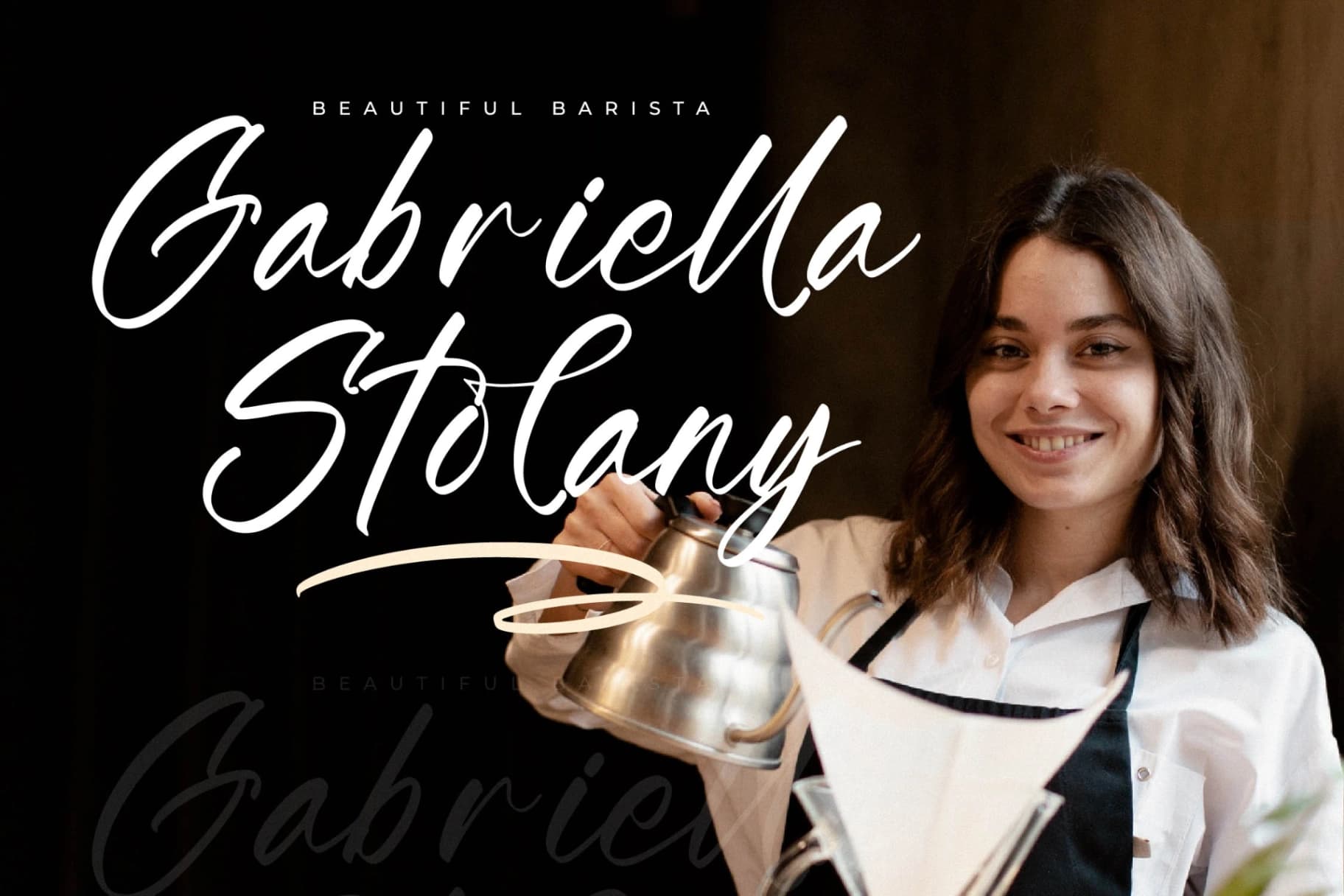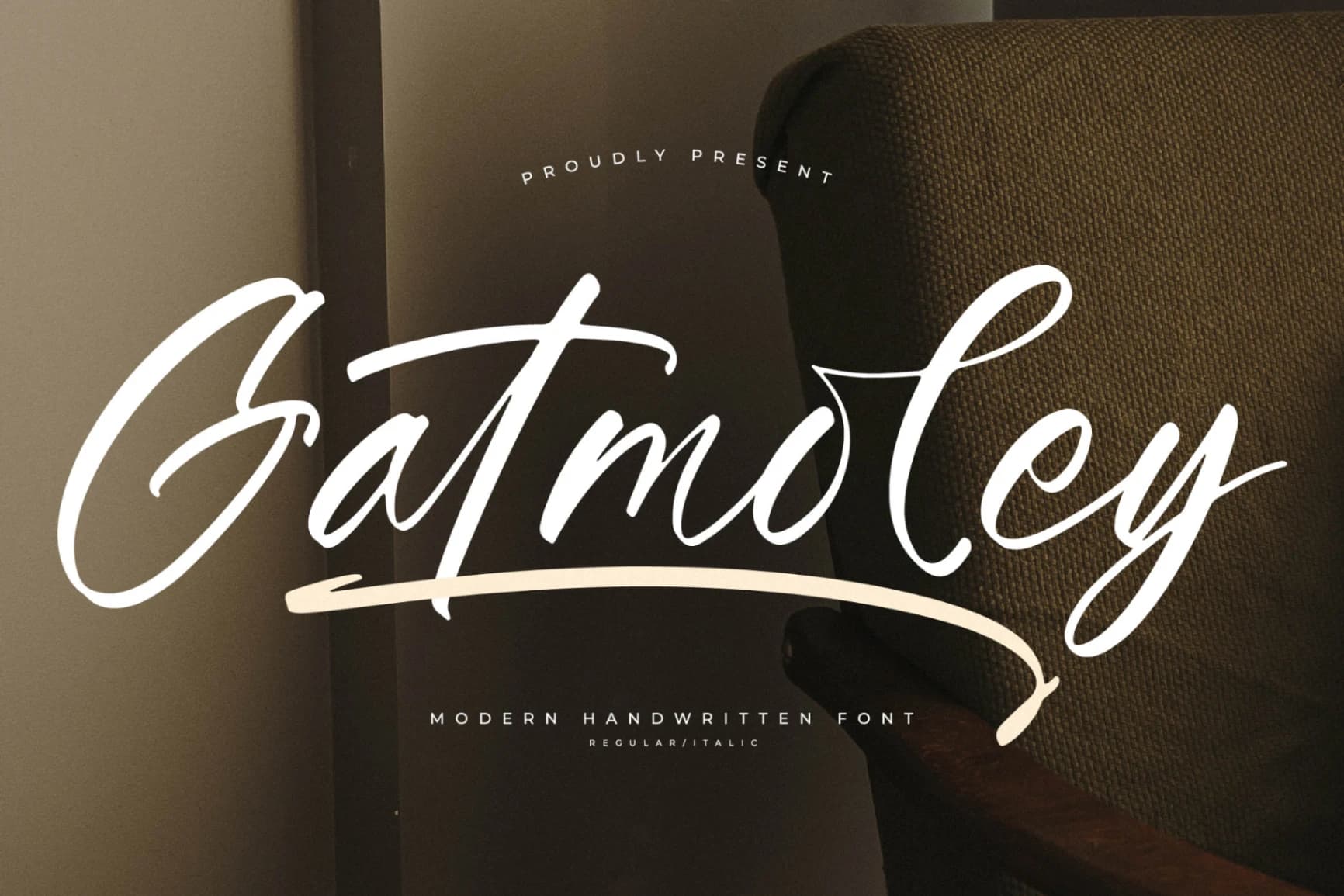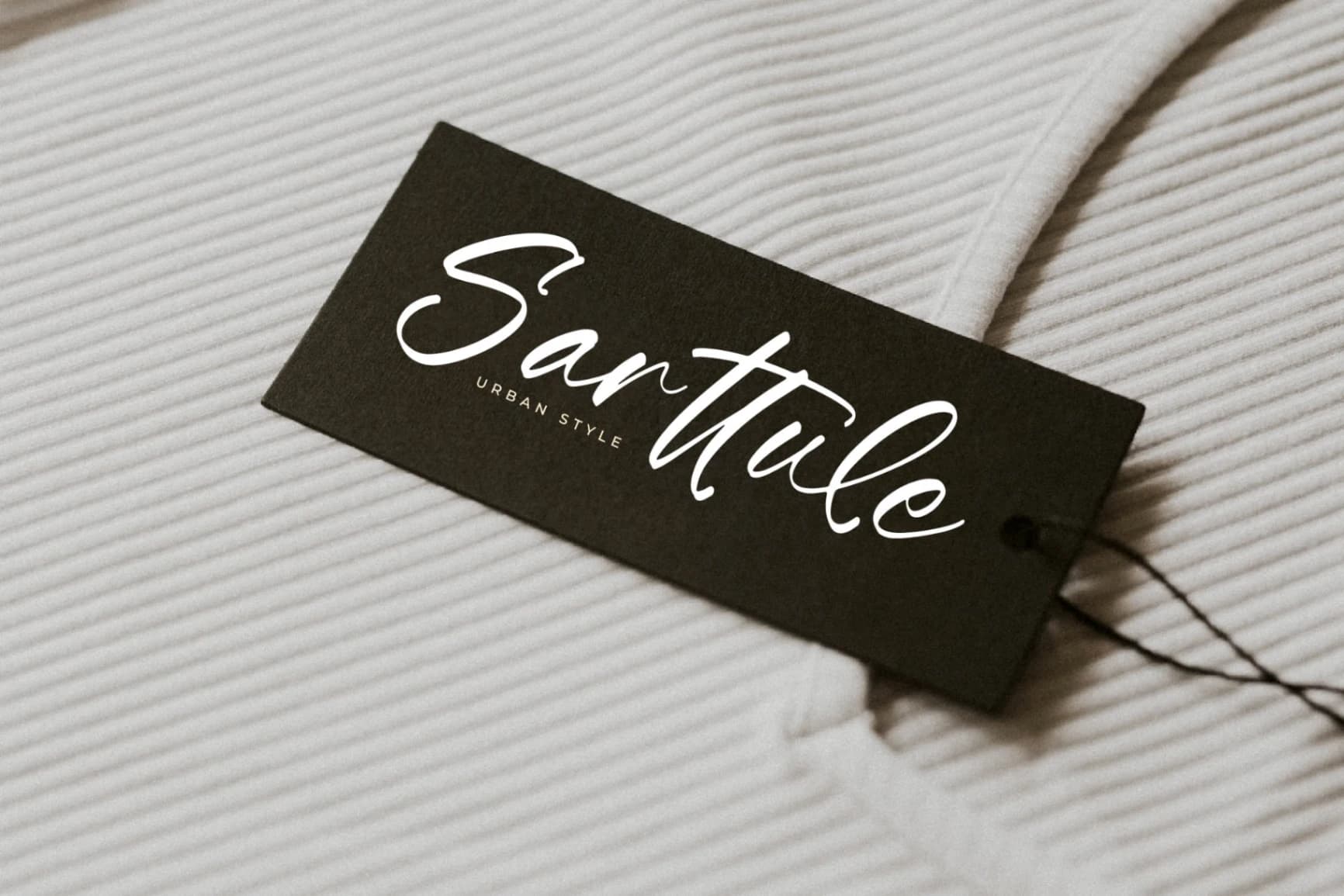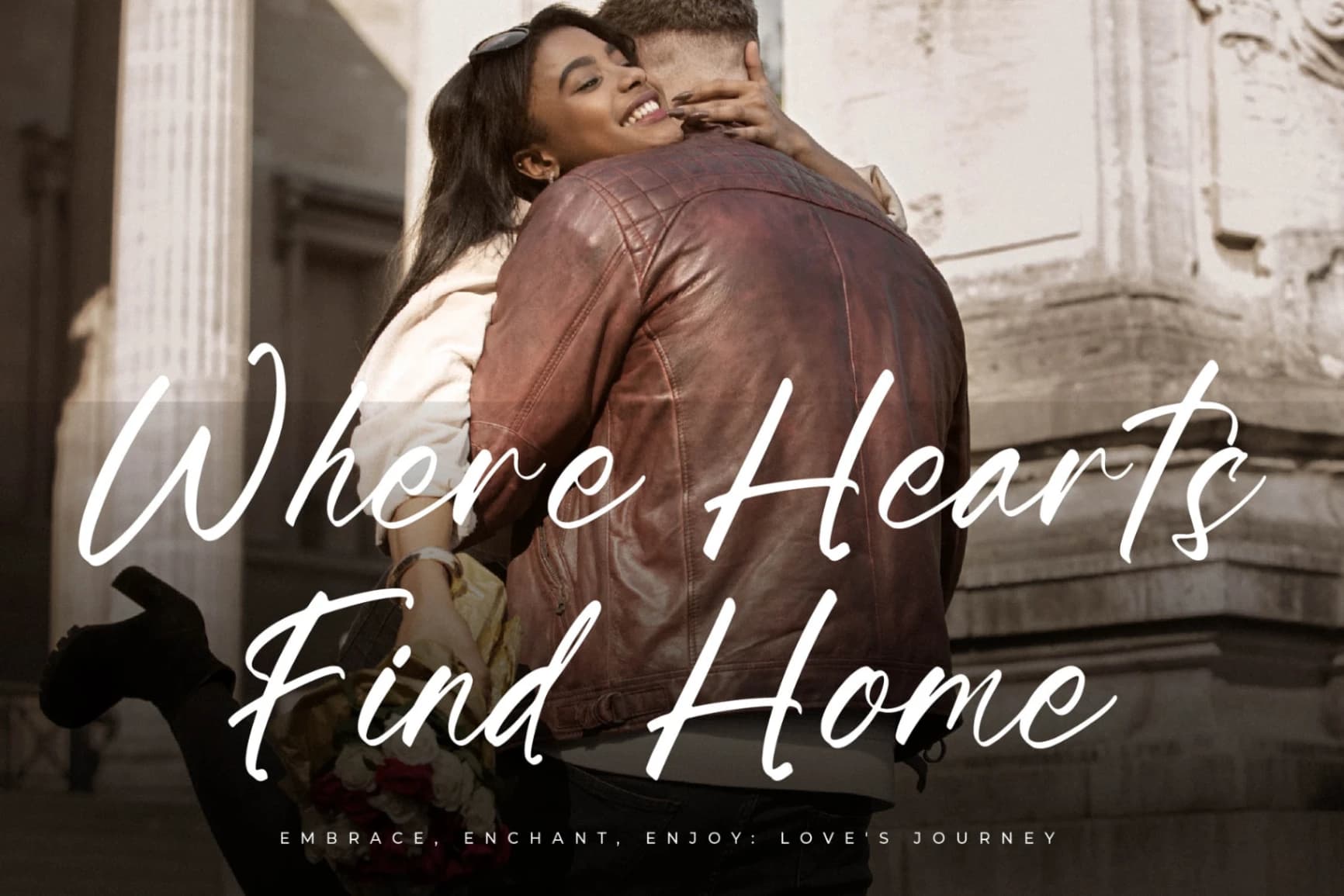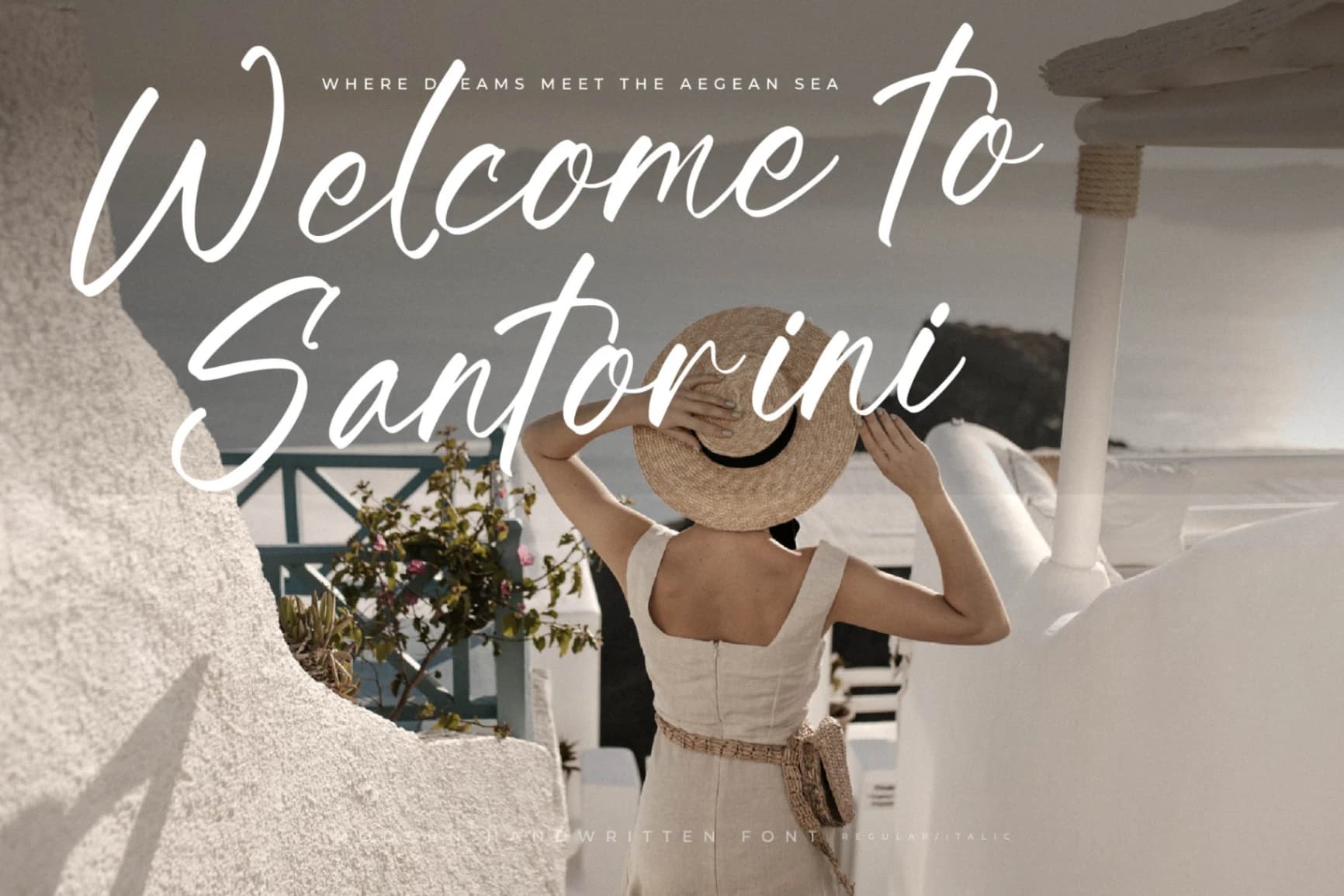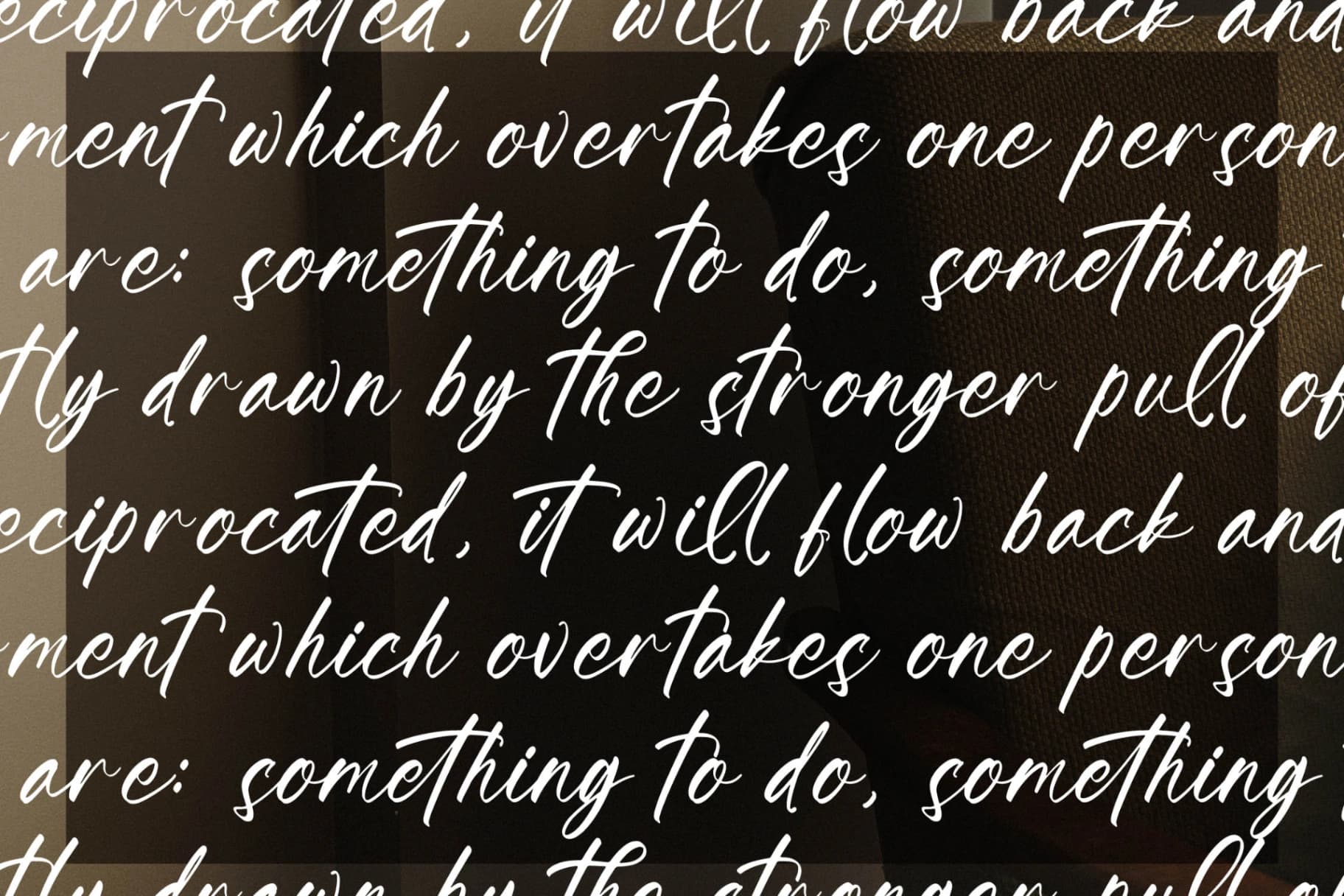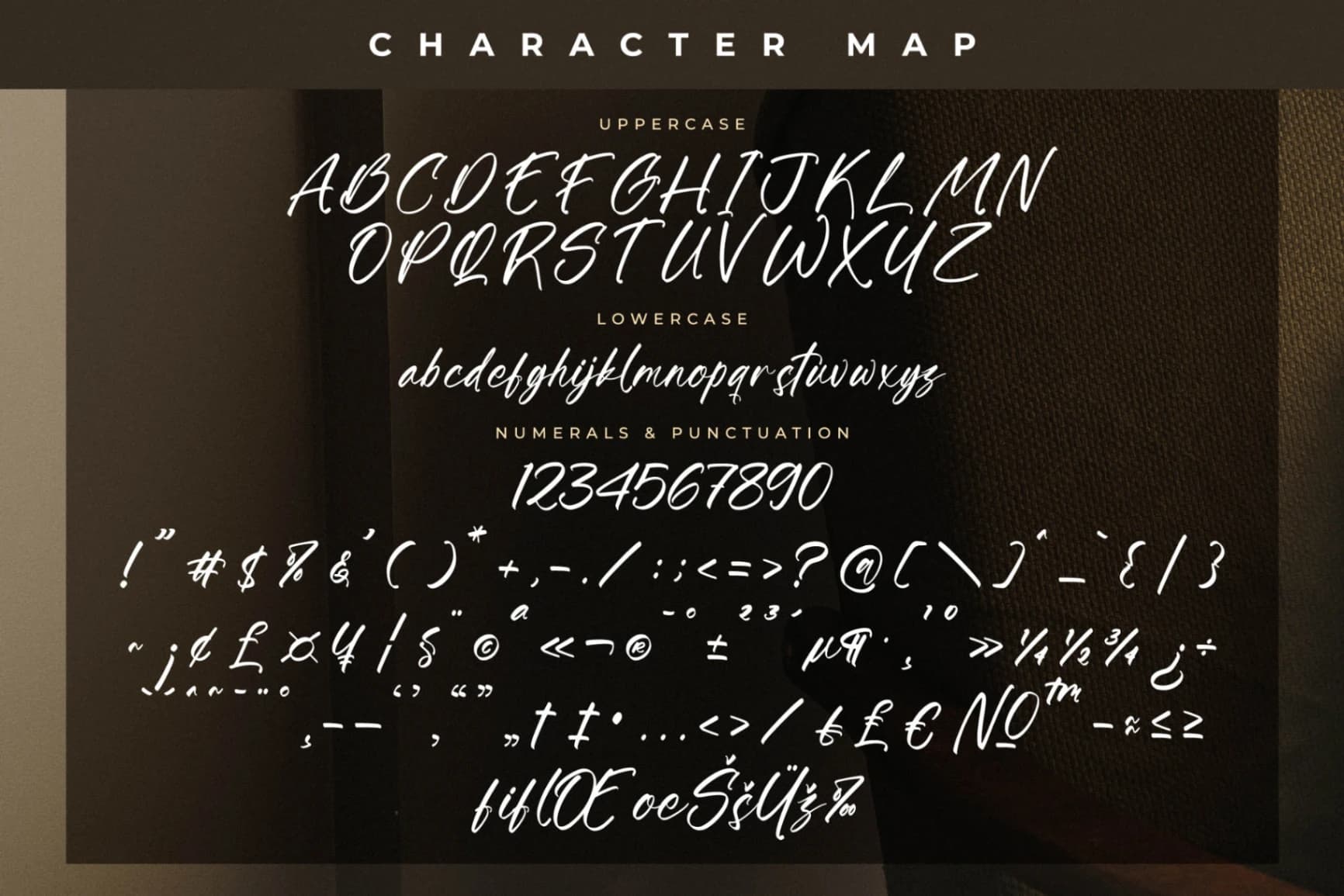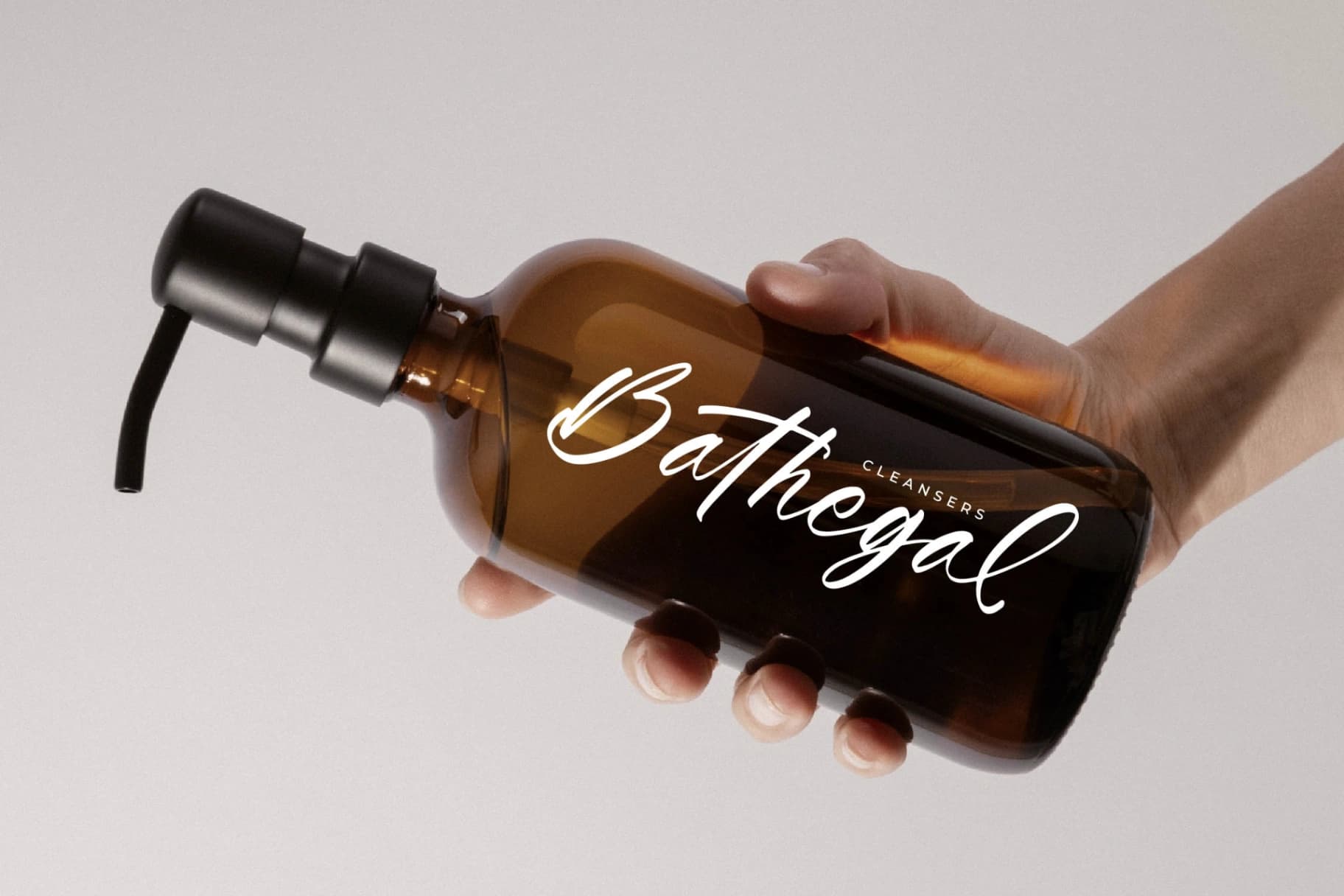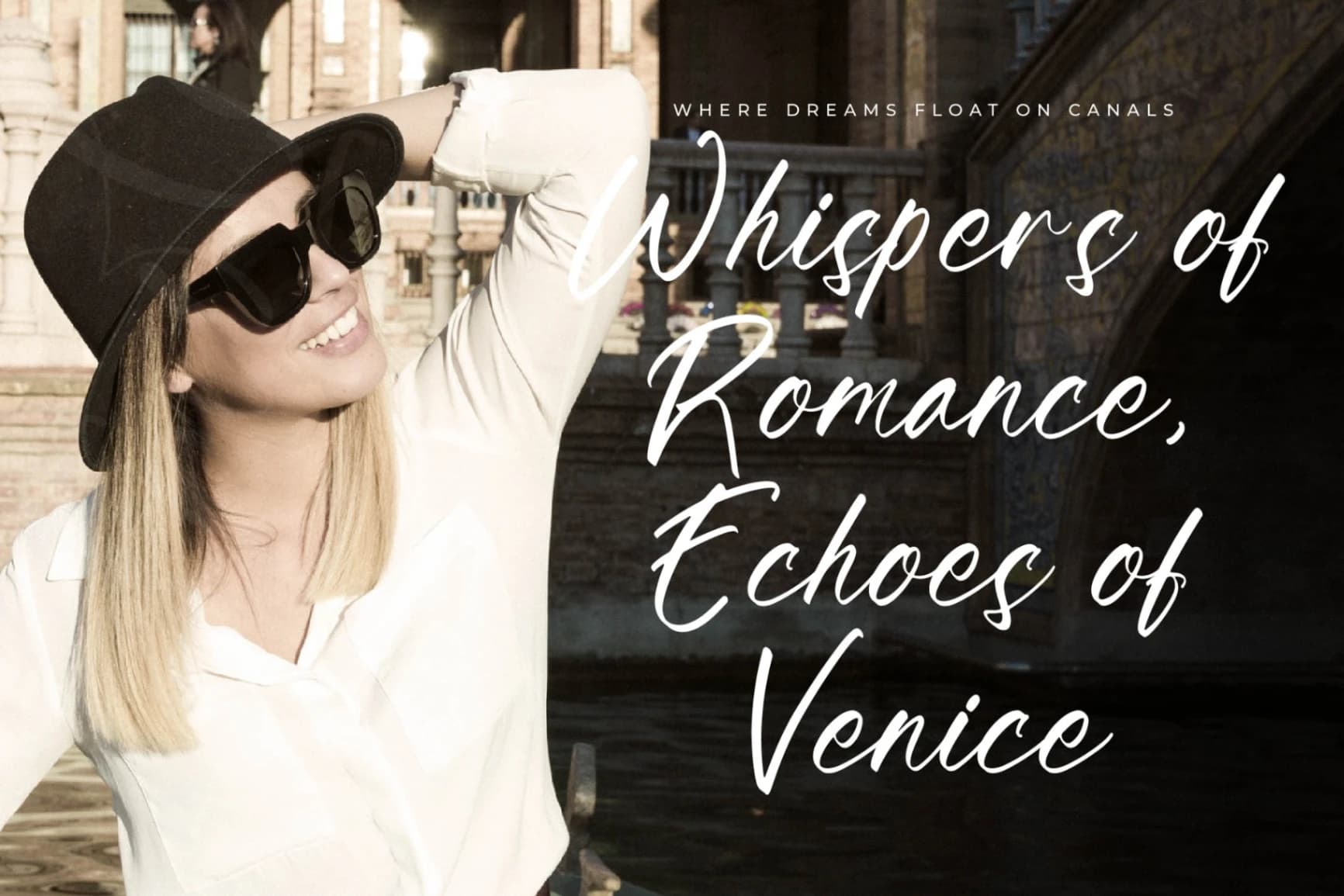
Gatmoley – Modern Handwritten Font
Discover the artistry of Font Gatmoley – Modern Handwritten Font Script, a typeface meticulously crafted to infuse your designs with authentic charm and expressive flow. This exquisite script font embodies the perfect blend of contemporary style and personal touch, making it an indispensable asset for any discerning designer. Elevate your visual narratives with its fluid strokes and inherent sophistication.
Experience the allure of high-contrast elegance with Font Gatmoley – Modern Handwritten Font Script. Each character is thoughtfully designed to create a harmonious and captivating visual rhythm, reflecting genuine hand-drawn quality. Its organic curves and dynamic baselines provide a distinctive personality that instantly commands attention and adds a layer of refinement to any creative endeavor.
Unlock unparalleled reach for your design projects with Font Gatmoley – Modern Handwritten Font Script. With its extensive multilingual support, Font Gatmoley – Modern Handwritten Font Script adapts seamlessly across global markets, making it incredibly versatile for international projects. This ensures your brand message resonates universally, maintaining its distinctive beauty across diverse linguistic landscapes.
Perfect for luxury branding, sophisticated packaging, captivating social media graphics, wedding invitations, and elegant editorial design, Font Gatmoley – Modern Handwritten Font Script delivers a premium aesthetic. It is specifically designed to transform ordinary text into extraordinary visual statements, ensuring your brand leaves a memorable and impactful impression on your audience.